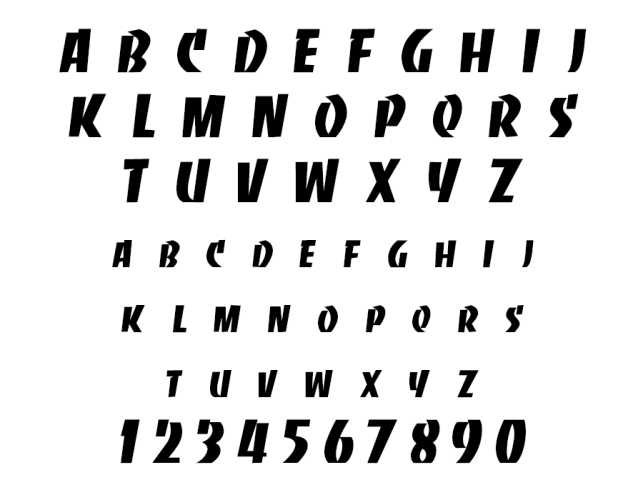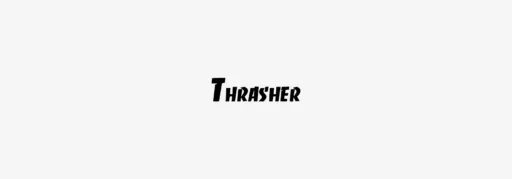
Thrasher Font
Thrasher Font is inspired by the bold, fiery logo of Thrasher Magazine, a symbol of skate culture and street style. Its sharp, flame-like letters bring energy and attitude to any design. Designers use this font for posters, logos, apparel, and artwork that need a rebellious and urban edge. Thrasher captures the raw spirit of creativity and freedom.
Thrasher Font is a Display Fonts font that brings a professional and versatile look to your projects. Thrasher Font is inspired by the bold, fiery logo of Thrasher Magazine, a symbol of skate culture and street style.